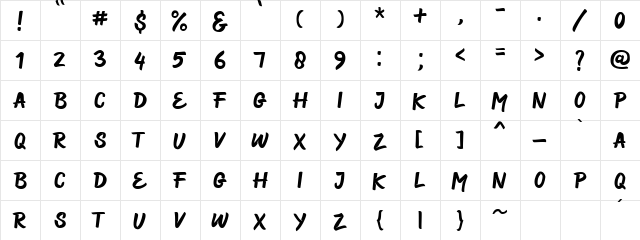
Brushill Regular
| Foundry | Atasi Studio |
| Designer | Rizka Prayuda |
Design Context for Brushill Typeface
Brushill flows with the natural rhythm of handwritten lettering, making it ideal for designs that call for warmth and personal expression.